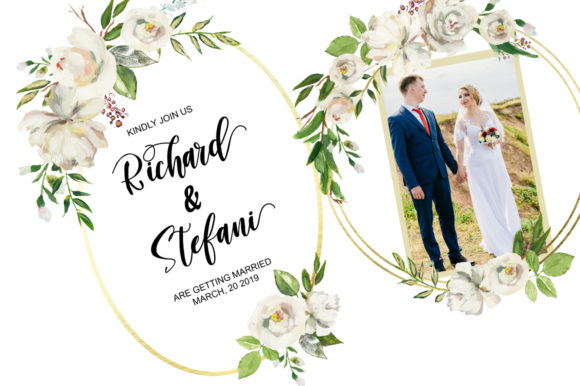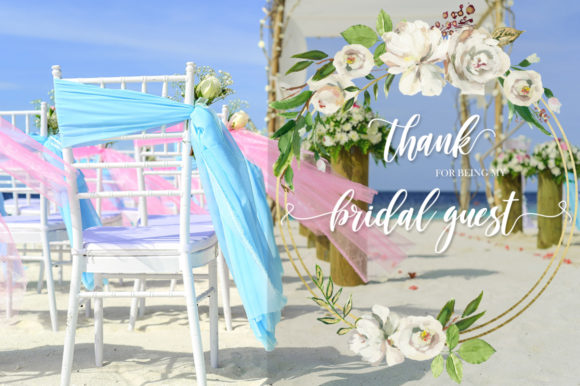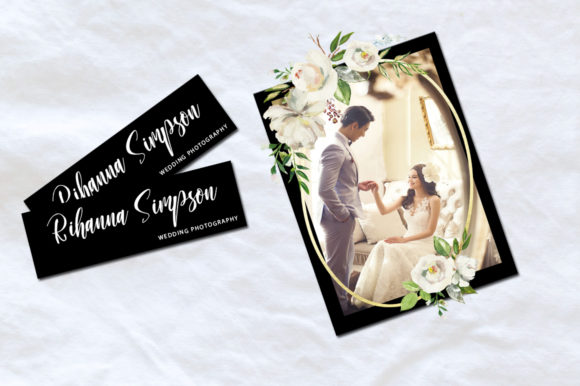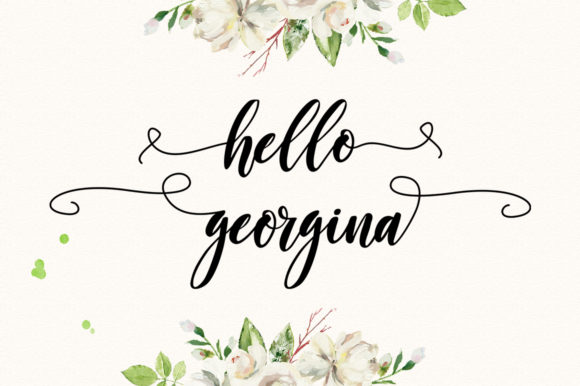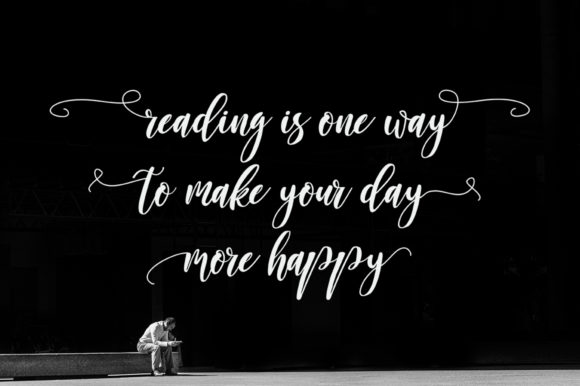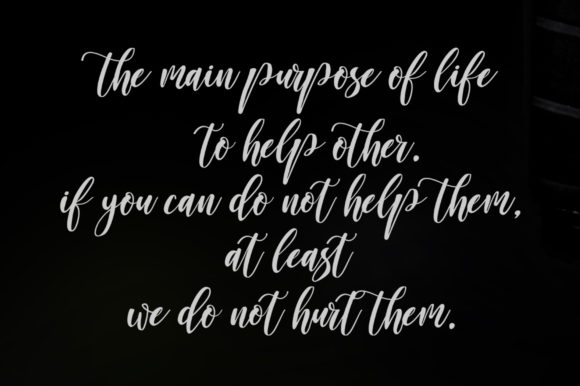
Introducing the Georgina Script Font: A Modern and Feminine Typeface
The Georgina Script Font is a stunning modern script font that has taken the design world by storm. With its irregular baseline and trendy, feminine style, it’s the perfect choice for designers and crafters looking to add a touch of elegance and sophistication to their projects. In this article, we’ll dive into the world of Georgina Script Font and explore its features, uses, and benefits.
What is the Georgina Script Font?
The Georgina Script Font is a modern script font designed with a unique irregular baseline, giving it a distinctive and eye-catching look. Its flowing lines and curves create a beautiful, handwritten feel that’s perfect for a variety of design projects. Whether you’re a professional designer or a crafty DIY enthusiast, this font is sure to impress.
Features of the Georgina Script Font
- Irregular Baseline: The Georgina Script Font features an irregular baseline, which gives it a unique and organic feel.
- Trendy and Feminine: This font has a trendy and feminine style, making it perfect for designs that require a touch of elegance and sophistication.
- Modern Design: The Georgina Script Font is a modern script font that’s perfect for designers and crafters who want to stay on top of the latest design trends.
- Highly Versatile: This font can be used for a wide range of design projects, from wedding invitations to business cards, logos, and more.
Uses of the Georgina Script Font
The Georgina Script Font is an incredibly versatile typeface that can be used for a variety of design projects, including:
- Wedding Invitations: The elegant and sophisticated style of the Georgina Script Font makes it perfect for wedding invitations, save-the-date cards, and other wedding-related designs.
- Thank You Cards: This font is also great for thank you cards, greeting cards, and other paper crafts.
- Quotes and Typography: The Georgina Script Font is perfect for creating beautiful quotes, typography posters, and other designs that require a touch of elegance.
- Logos and Branding: This font can also be used for logos, branding, and other business-related designs.
- Business Cards: The Georgina Script Font is a great choice for business cards, making it perfect for entrepreneurs, small business owners, and freelancers.
Benefits of Using the Georgina Script Font
There are many benefits to using the Georgina Script Font in your design projects. Here are a few:
- Elegance and Sophistication: This font adds a touch of elegance and sophistication to any design project.
- Unique and Eye-Catching: The irregular baseline and trendy style of the Georgina Script Font make it a unique and eye-catching typeface.
- Highly Versatile: This font can be used for a wide range of design projects, making it a great addition to any designer’s toolkit.
- Easy to Read: Despite its ornate style, the Georgina Script Font is easy to read, making it perfect for designs that require a clear and legible typeface.
Tips for Using the Georgina Script Font
Here are a few tips for using the Georgina Script Font in your design projects:
- Use it Sparingly: While the Georgina Script Font is beautiful, it can be overwhelming if used too much. Use it sparingly to add a touch of elegance to your designs.
- Pair it with a Simple Font: Pair the Georgina Script Font with a simple font to create a beautiful contrast.
- Experiment with Colors: The Georgina Script Font looks great in a variety of colors, so don’t be afraid to experiment and find the perfect color scheme for your design.
| Font Name | Georgina Script Font |
The Georgina Script Font is a stunning modern script font that’s perfect for designers and crafters looking to add a touch of elegance and sophistication to their projects. With its irregular baseline, trendy style, and highly versatile design, it’s the perfect choice for a wide range of design projects. Whether you’re creating wedding invitations, thank you cards, logos, or business cards, the Georgina Script Font is sure to impress.